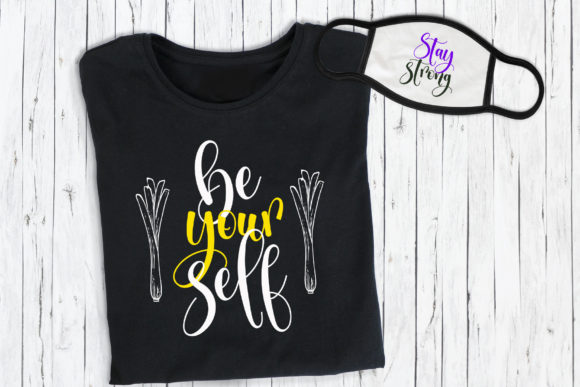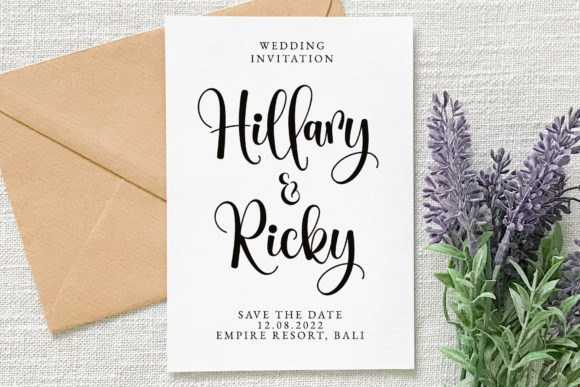
Thankstory Font
db-ku.com - Script & Handwritten -- Thankstory is a simple and delicate script font. Its elegant style makes this font the right choice for various design ideas.